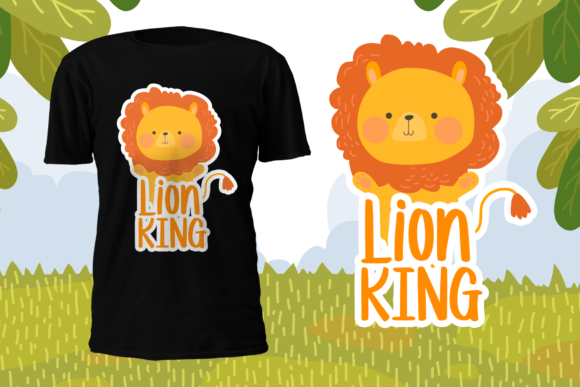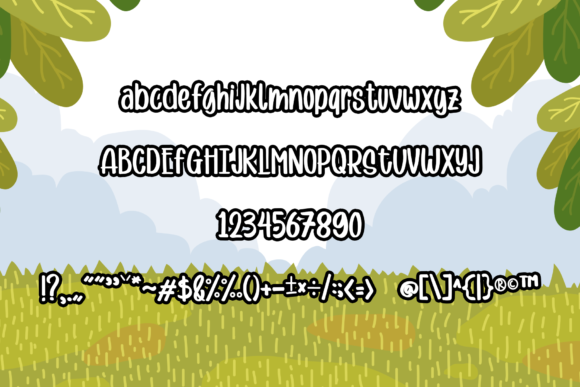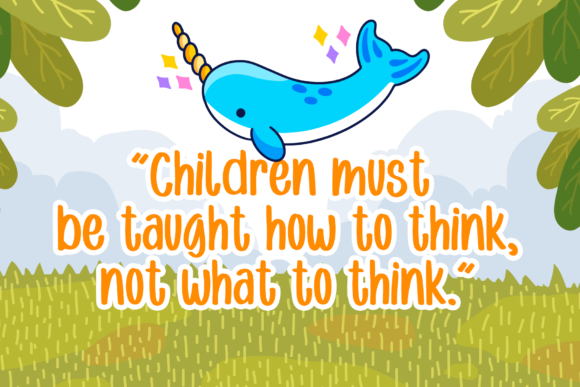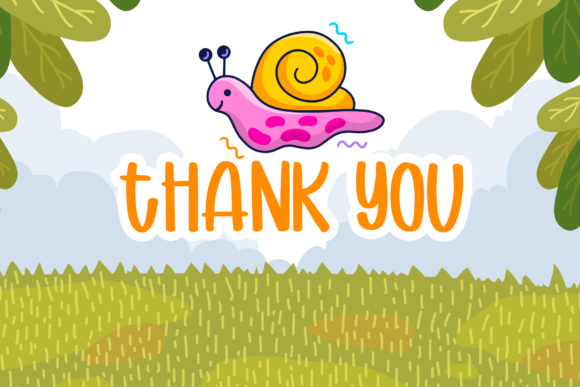
Introduction to Dhino Dhino Font
Dhino Dhino is a neat, tall and simple handwritten font.
No matter the topic, this font will be an incredibly asset to your fontsโ library, as it has the potential to elevate any creation .